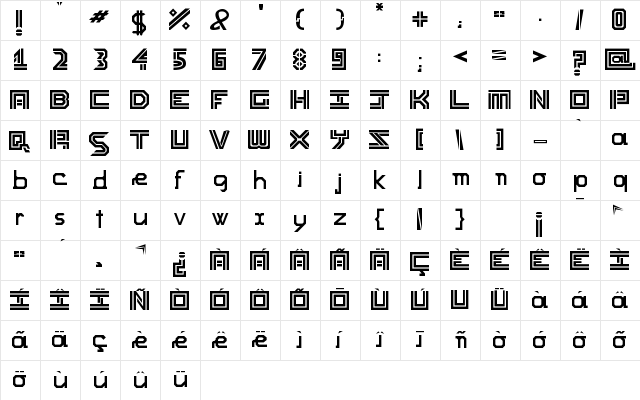
Trackmania Regular
Designer: By NEOCry
Complete Trackmania Regular glyph index. Displaying only characters natively supported by Trackmania Regular font.
Design Context for Trackmania
Trackmania is a composed and adaptable typeface that performs quietly and consistently across a wide range of design contexts.